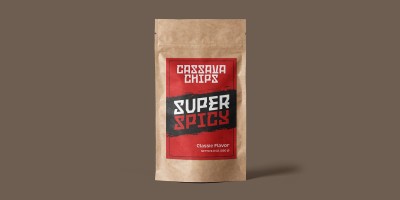
Simple Stamp Font Free Download
Simple Stamp Font is perfect for handmade craft businesses, artisan marketplaces, vintage-inspired brands, DIY project materials, rubber stamp companies, scrapbooking supplies, nostalgic packaging designs, and authentic handcraft lifestyle brands where stamped authenticity and handmade charm are essential.
What makes Simple Stamp Font exciting is its authentic, hand-stamped character that perfectly captures the honest simplicity and genuine craftsmanship of traditional rubber stamp impressions and handmade marking techniques. This font features textured letterforms with stamp-like irregularities and authentic variations that mirror the tactile quality of real rubber stamps and the personal touch of hand-applied markings. Its approachable presence instantly communicates handmade authenticity, craft simplicity, and DIY spirit that resonates with craft enthusiasts, makers, and anyone drawn to the honest appeal of traditional stamping methods and handcrafted communication.
Simple Stamp Font family includes regular, bold, light, and distressed variations with craft-inspired decorative elements like stamp borders, handmade symbols, craft ornaments, and authentic flourishes that enhance the handcrafted atmosphere of any stamping-focused design project.
Simple Stamp Font Free Download offers designers access to exceptional handcraft typography for creating compelling brand experiences in the craft industry, DIY education, and handmade goods markets. This typeface excels in markets where handmade authenticity and craft credibility directly influence purchasing decisions, workshop participation, and brand loyalty among craft communities and DIY enthusiasts. Artisan craft makers and DIY educators particularly appreciate how Simple Stamp Font instantly communicates craft expertise while maintaining excellent readability across all handmade communications from craft fair signage to DIY tutorial materials. The font's stamped aesthetic makes it ideal for rubber stamp manufacturers, scrapbooking supply companies, and craft workshop organizers where projecting authentic handcraft knowledge and celebrating traditional making techniques is crucial for building trust with crafters who value genuine handmade quality and traditional craft methods. Its versatile design adapts seamlessly from large craft fair displays to small product labels, maintaining consistent authenticity while preserving handcraft character. Whether you're designing for craft supply companies, DIY education platforms, or handmade goods businesses, Simple Stamp Font delivers the perfect combination of craft authority and handmade charm that helps craft-focused organizations establish credibility and create meaningful connections with makers who appreciate traditional stamping techniques, handcraft authenticity, and the honest simplicity that defines exceptional DIY culture and handmade craft excellence.